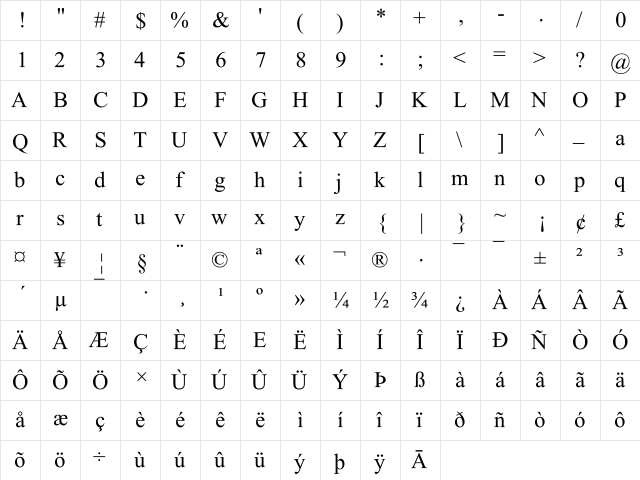
Ekushey Saraswatii Normal
Design Context for Ekushey Saraswatii Typeface
Ekushey Saraswatii offers clean, dependable letterforms without strong stylistic allegiance, making it a practical choice for designers who need flexibility.
Pro Tip: Use Ekushey Saraswatii in both headline and body roles to test its range before committing to a single application.